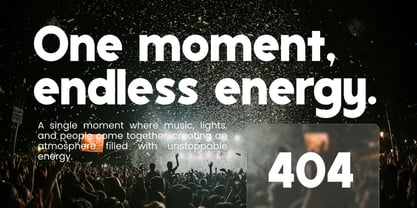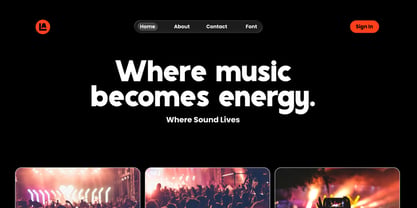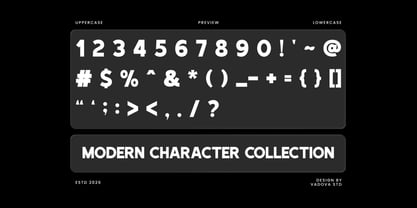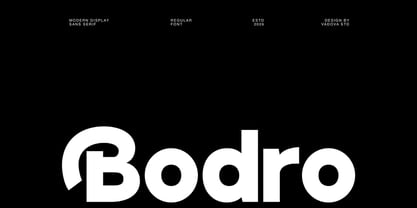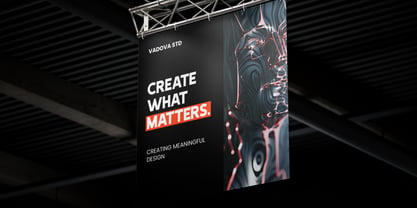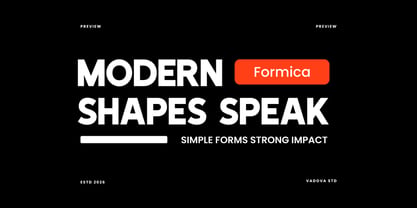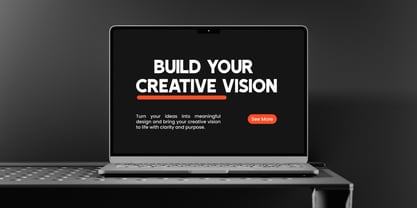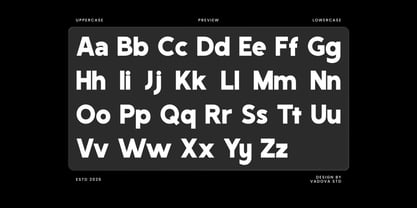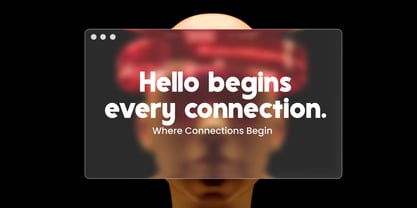
Bodro
Bodro is a modern bold display sans serif font designed with strong geometric structure and confident contemporary proportions. The letterforms feature thick strokes, smooth curves, and balanced spacing that create a powerful visual presence while maintaining clarity and readability. This typeface includes uppercase, lowercase, numerals, punctuation, and multilingual support, providing a versatile character set suitable for modern design systems. Relevance and Uses Cases Bodro is ideal for modern branding systems, advertising headlines, poster design, editorial layouts, packaging design, website typography, UI/UX interfaces, and contemporary graphic design projects. The bold structure and clean geometry make it particularly effective for strong visual communication and impactful headline typography.